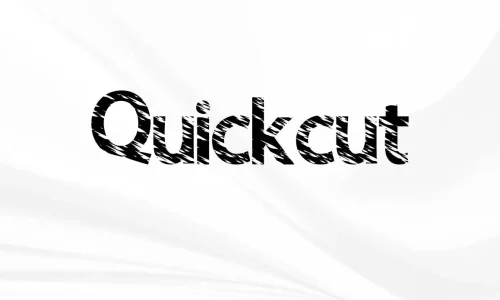
Shopkins Font is a texture style that is best for logos. This textured style is a fancy type. This font style is used in Shopkins Logo.
Shopkins is basically a small toy manufacturing company that is mostly free with grocery items. This company was designed by Moose Toys in April 2013 located in Melbourne Australia.
The textured design in this logo. According to a survey in September 2019, this company becomes famous all over the world. Same as its logo become eye-catchy for every designer because of its stylish and unique texture appearance.